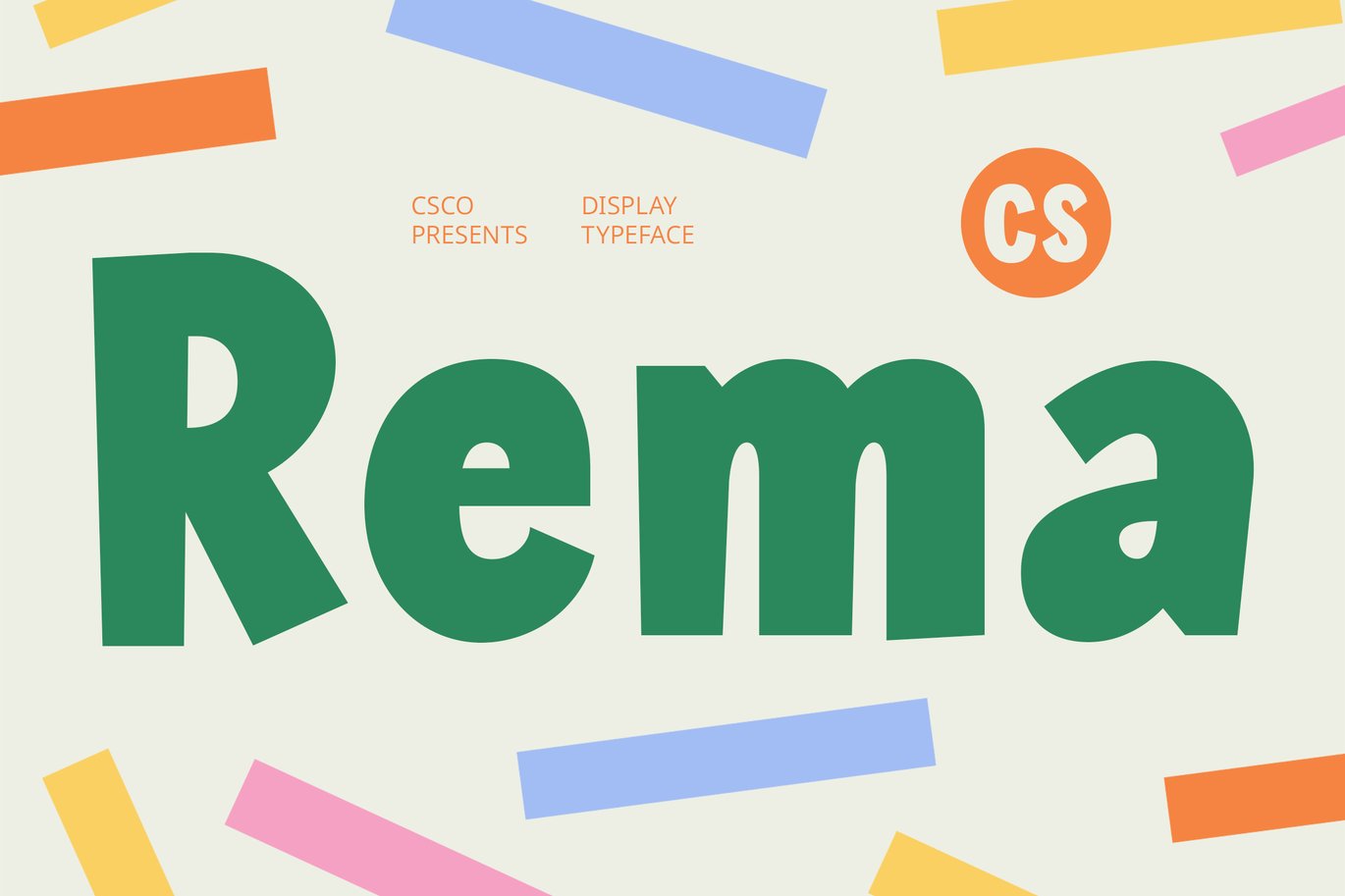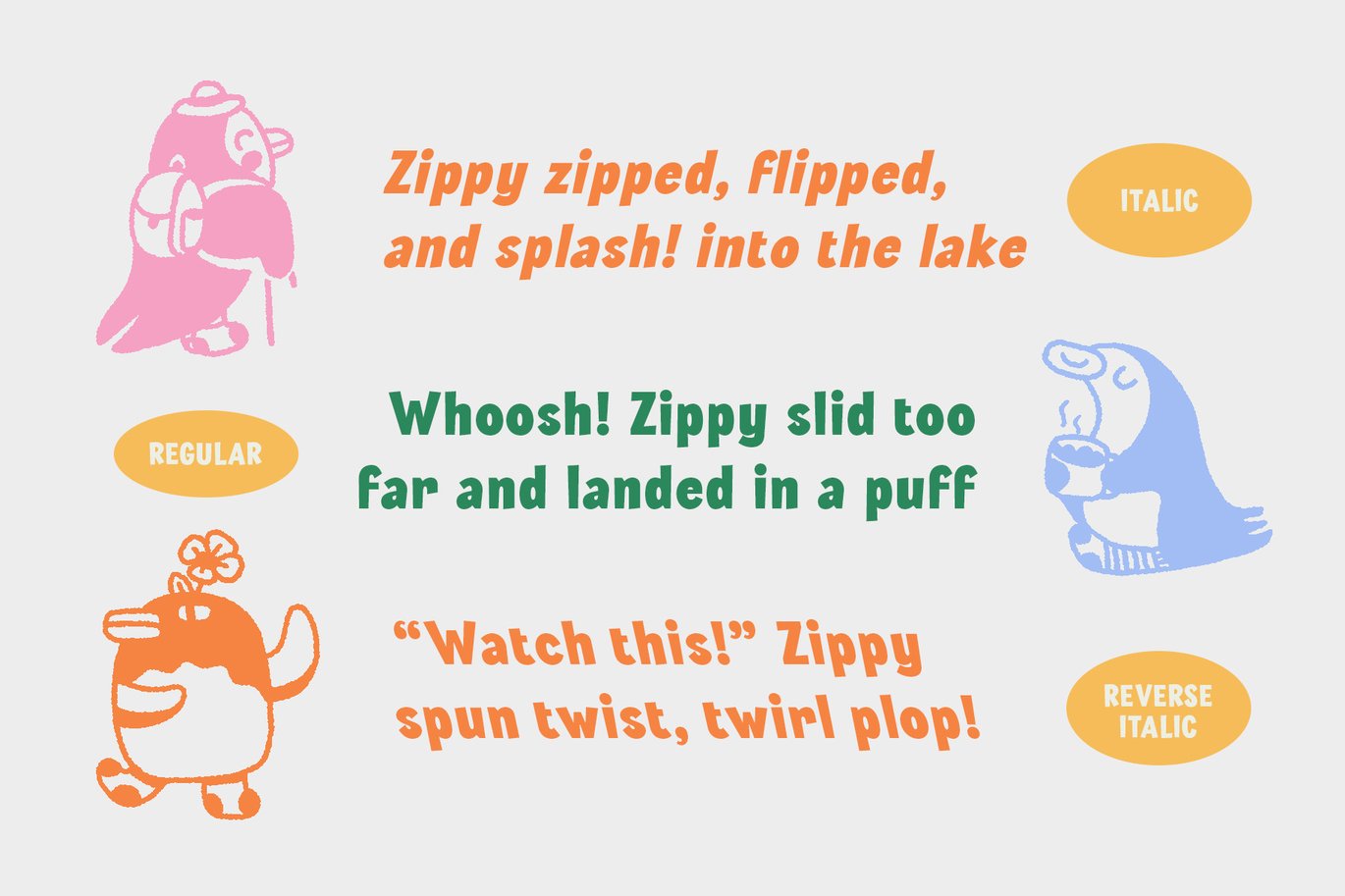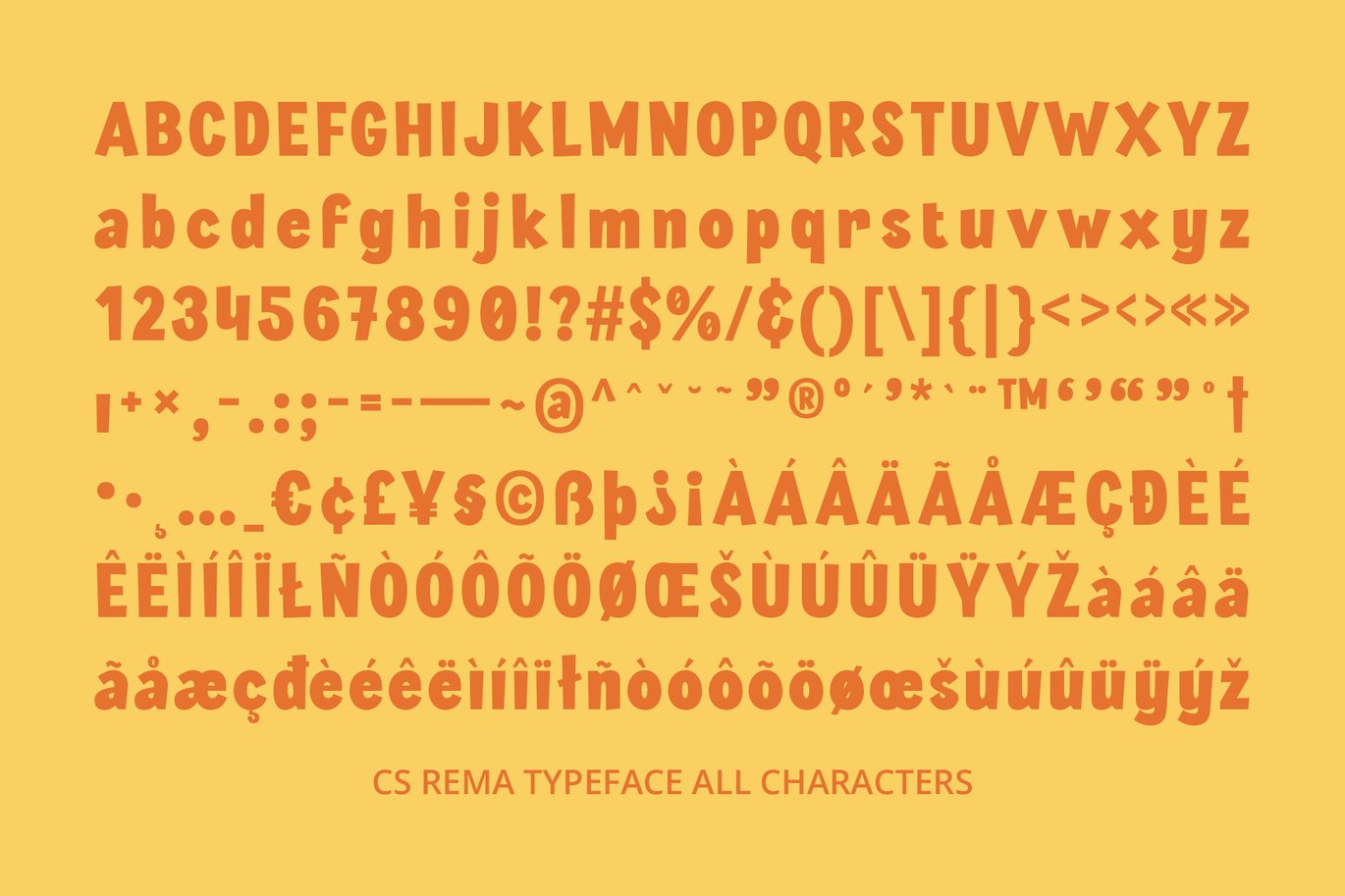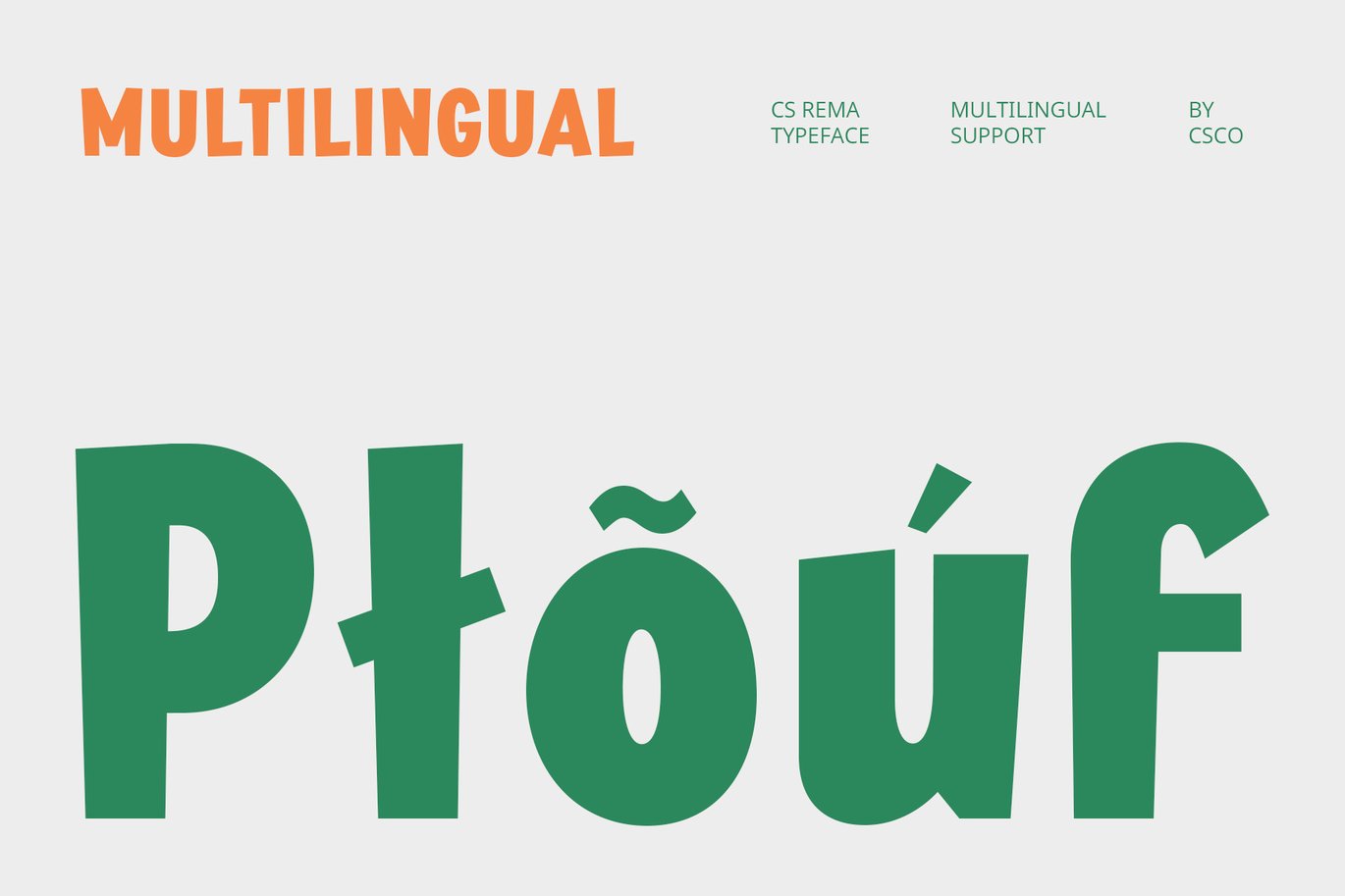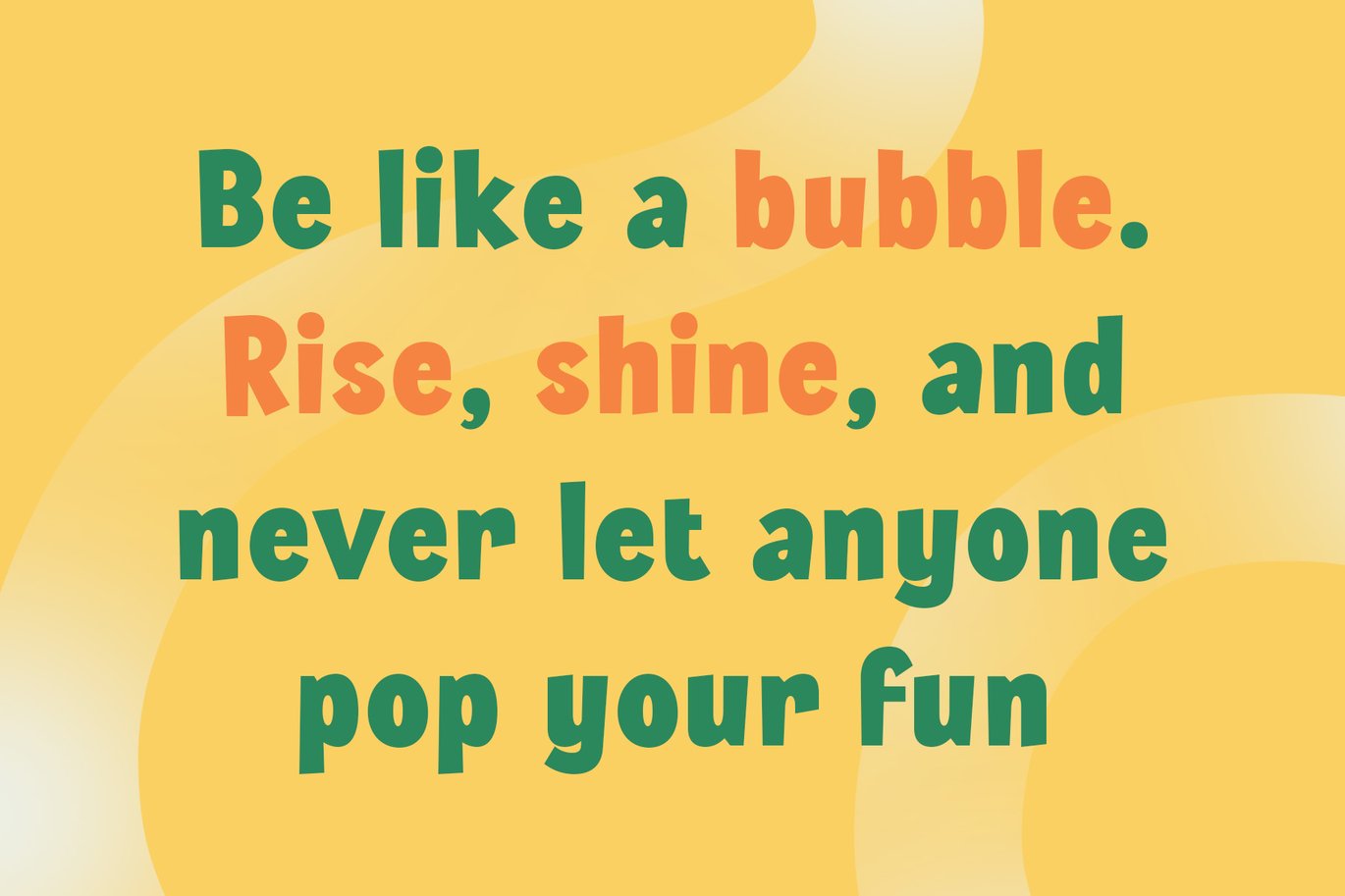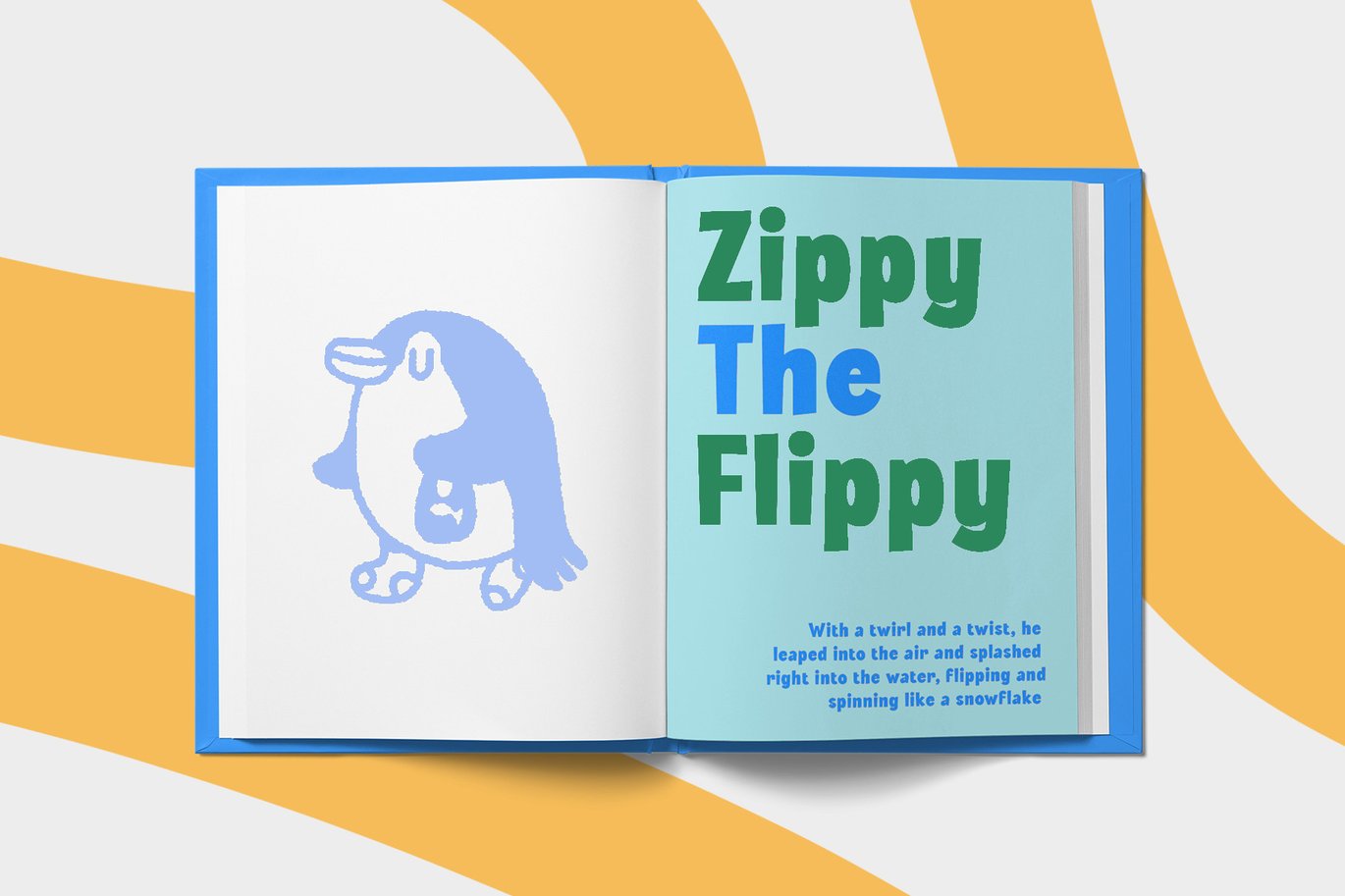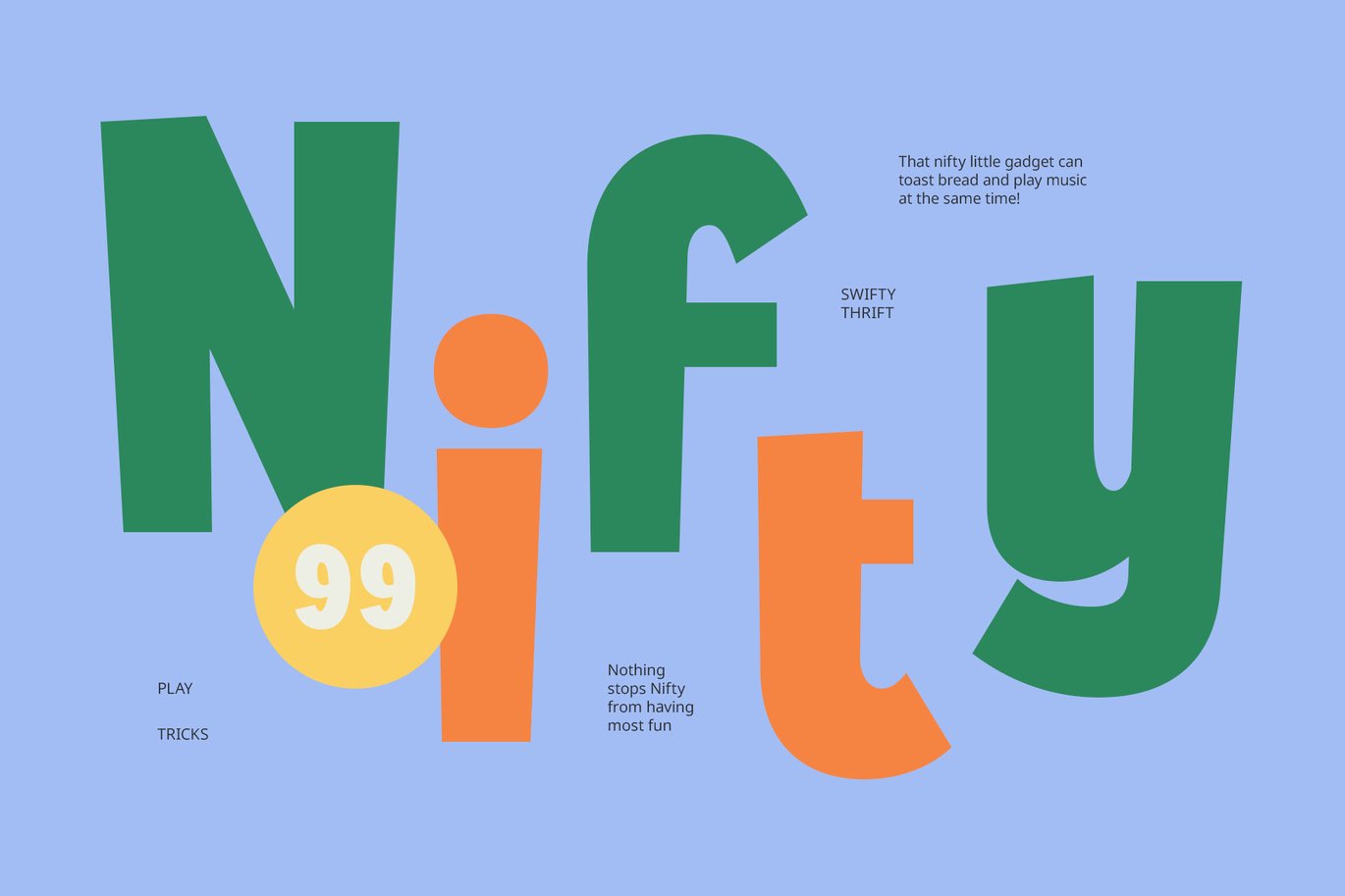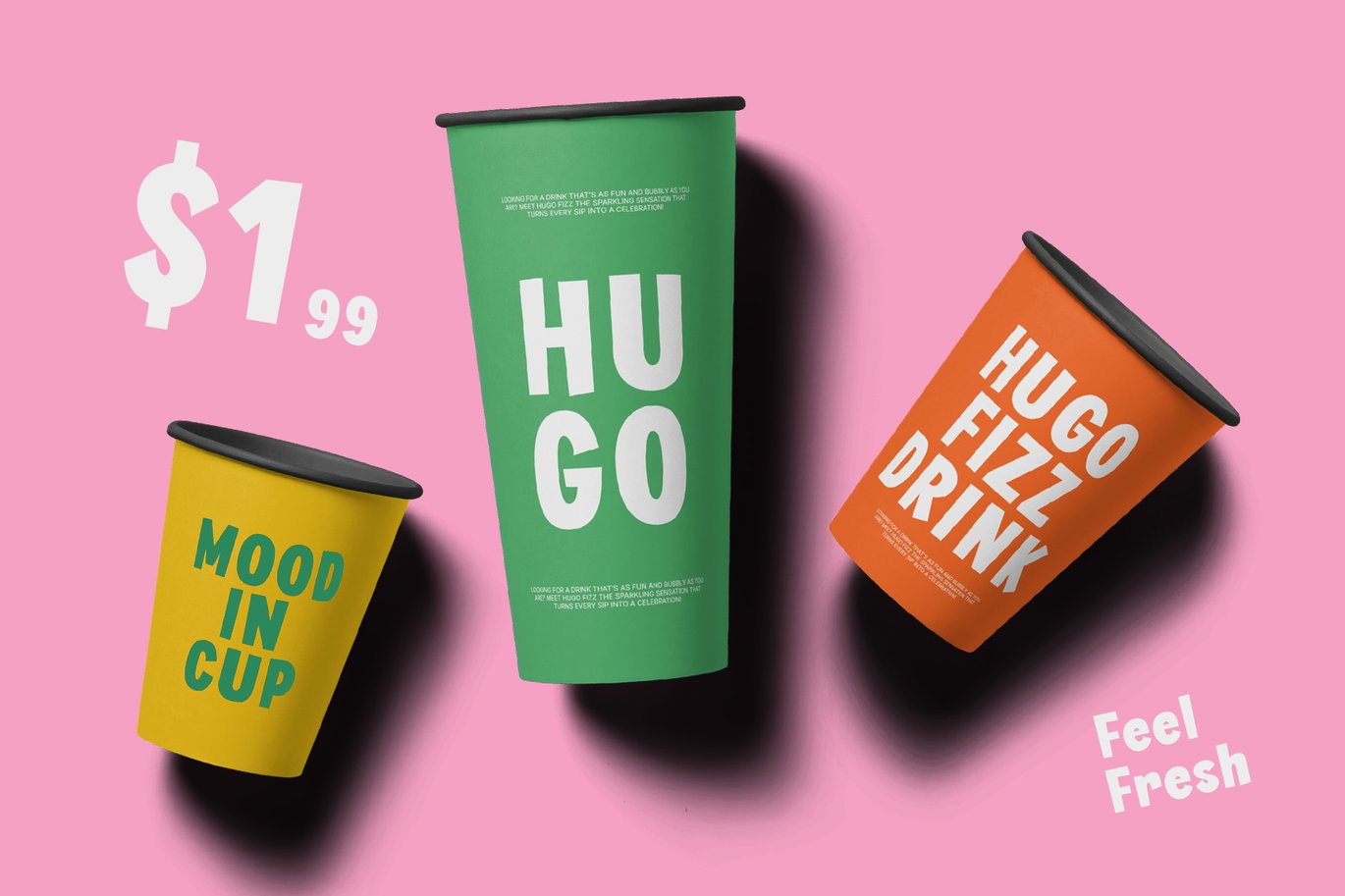
Rema – Fun Font
CS Rema – Fun Font: Playful, Bold, and Full of Energy
A Cheerful and Funky Display Sans
CS Rema is a modern sans-serif display font that radiates fun, joy, and creativity. With its bold yet cute letterforms, this font brings a lively and expressive character to any design. Whether you’re crafting playful branding, eye-catching posters, or vibrant packaging, CS Rema ensures a friendly and energetic presence that instantly grabs attention.
Expressive Shapes for a Playful Aesthetic
Designed with quirky curves, rounded edges, and exaggerated forms, CS Rema embraces a funky, childlike charm while maintaining versatility and readability. Its unique proportions and dynamic flow make it a great choice for storytelling and engaging visuals that require an extra touch of fun.
Perfect for Kids’ Designs and Creative Branding
With its warm and inviting appearance, CS Rema is the perfect fit for children’s books, playful logos, toy packaging, greeting cards, and colorful advertising. Its design captures a youthful spirit, making it ideal for projects that celebrate fun, imagination, and excitement.
Versatile and Eye-Catching
Beyond kids’ themes, CS Rema adapts well to party invitations, social media graphics, merchandise, and interactive media. Its bold yet friendly presence ensures that your text stands out while maintaining a lighthearted and joyful tone. Whether used in large headings or decorative elements, CS Rema injects energy and personality into every project.